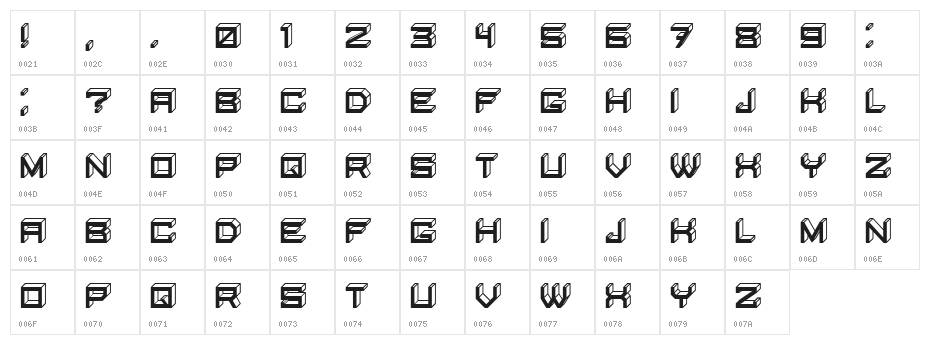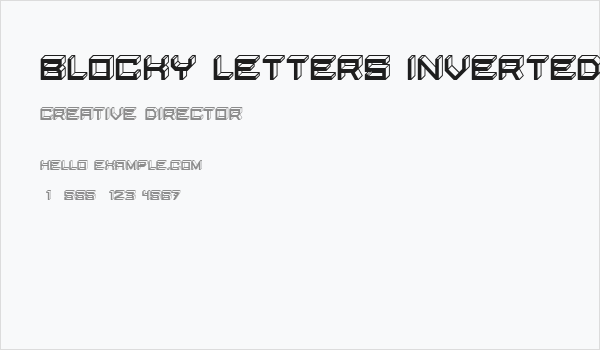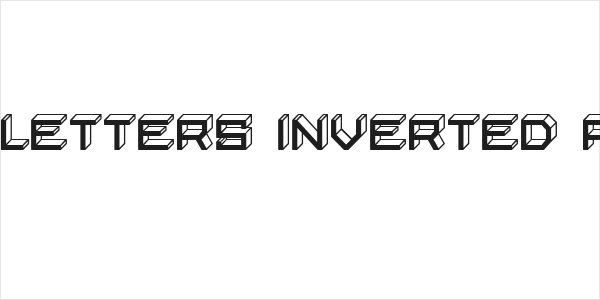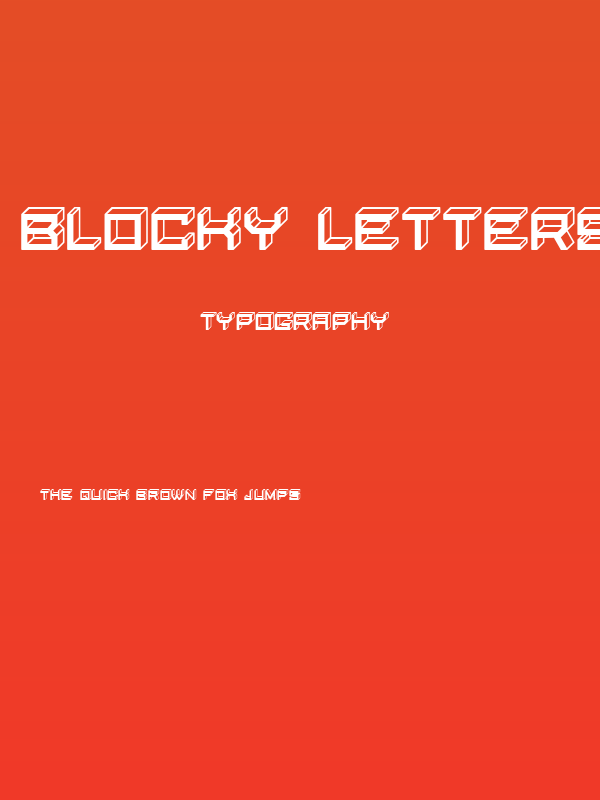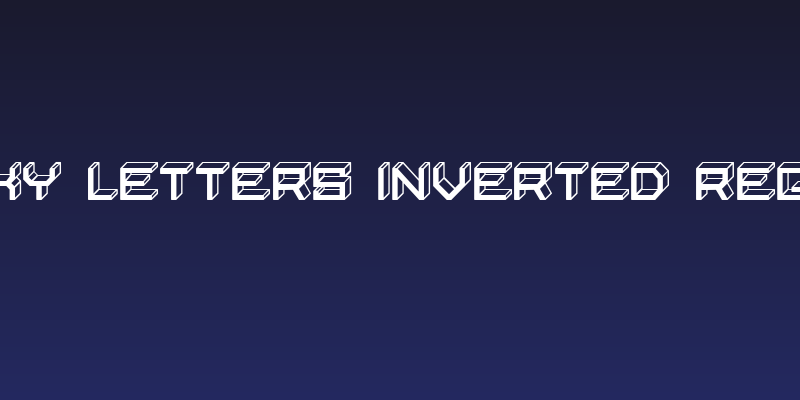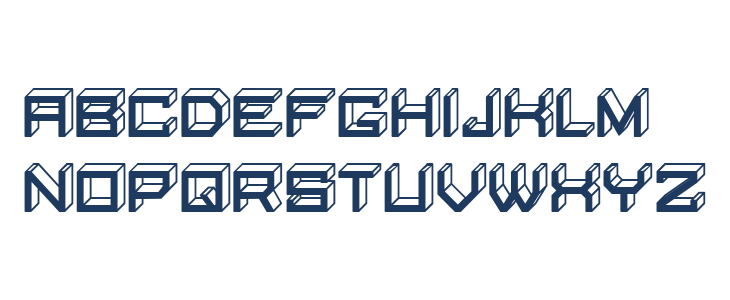
Blocky Letters Inverted Regular Font
Blocky Letters Inverted Regular Description
This font features a bold, three-dimensional block style with a distinct shadow effect that gives each character a sense of depth and solidity. The geometric design is consistent across all characters, creating a cohesive and striking appearance. The uppercase letters are particularly prominent, with sharp angles and clean lines that enhance the font's modern and futuristic feel. The numerals and special characters maintain the same blocky aesthetic, ensuring uniformity throughout. This font's unique style makes it ideal for projects that require a strong visual impact.
| Proposed Projects | Ideal for posters, logos, video game graphics, and any design needing a bold, impactful look. |